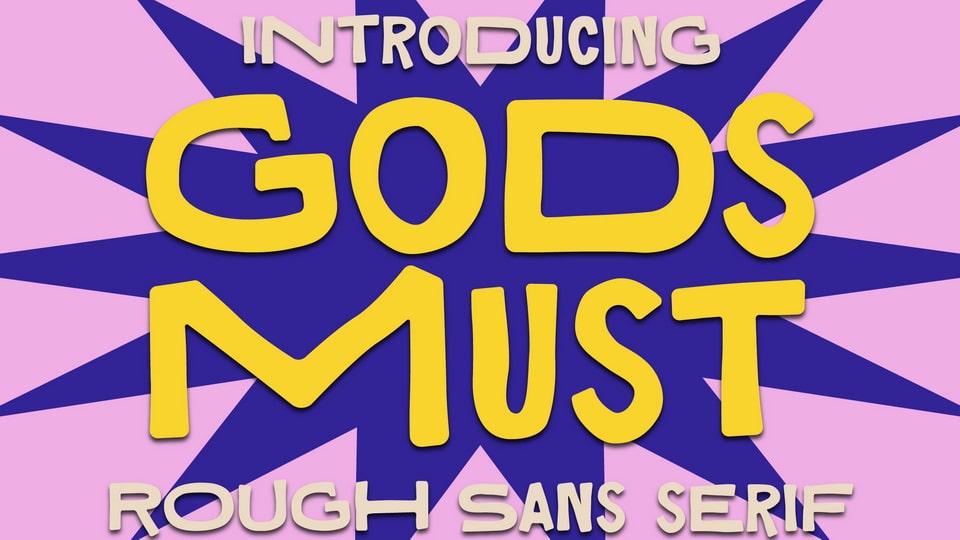
Download Gods Must font, a bold and rough display typeface that has its own unique style and modern look. Gods Must font is perfect for an grunge logo, posters, book or movie title design, street-style fashion brand, magazine, lettering, quotes, and so much more.